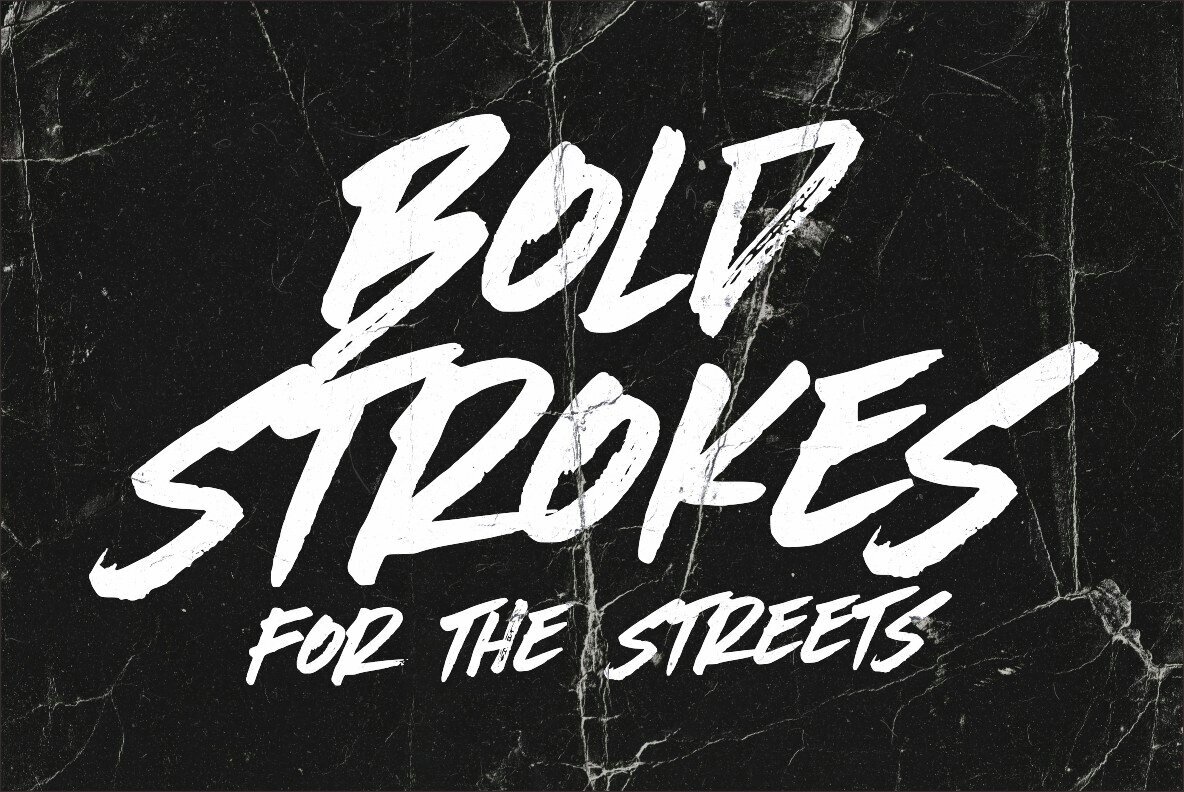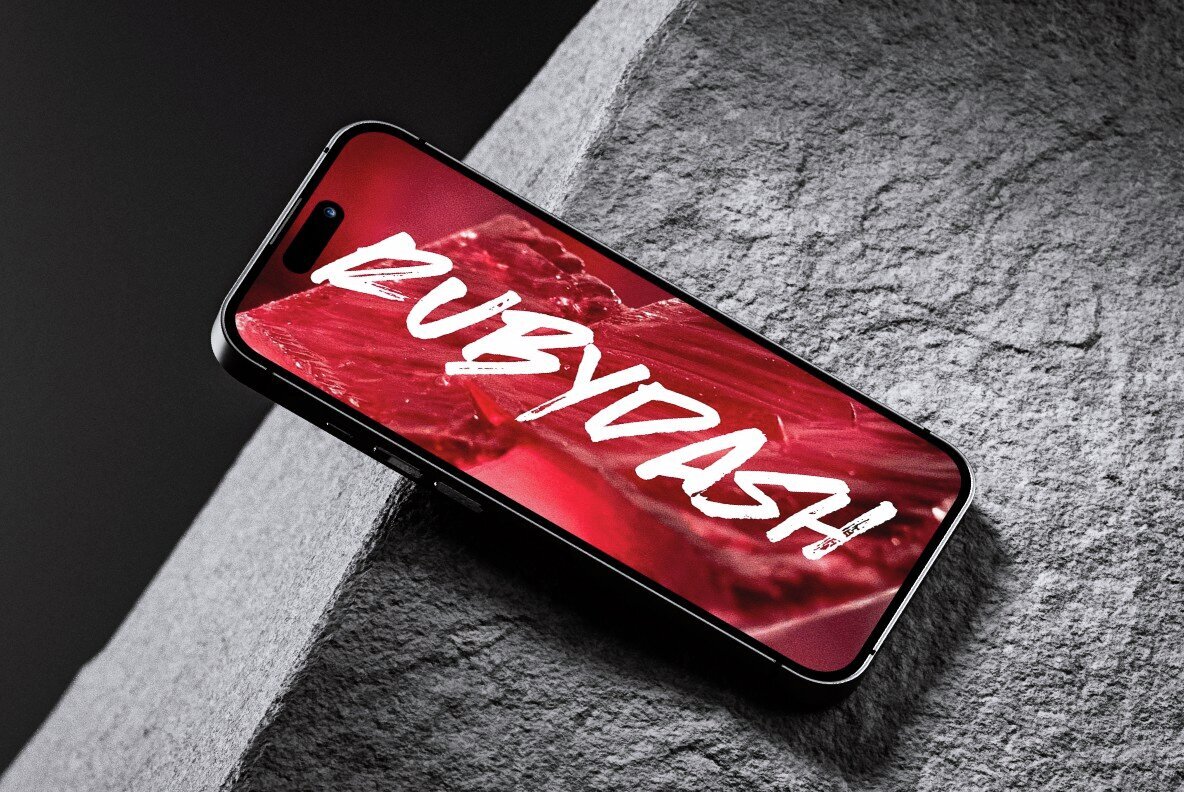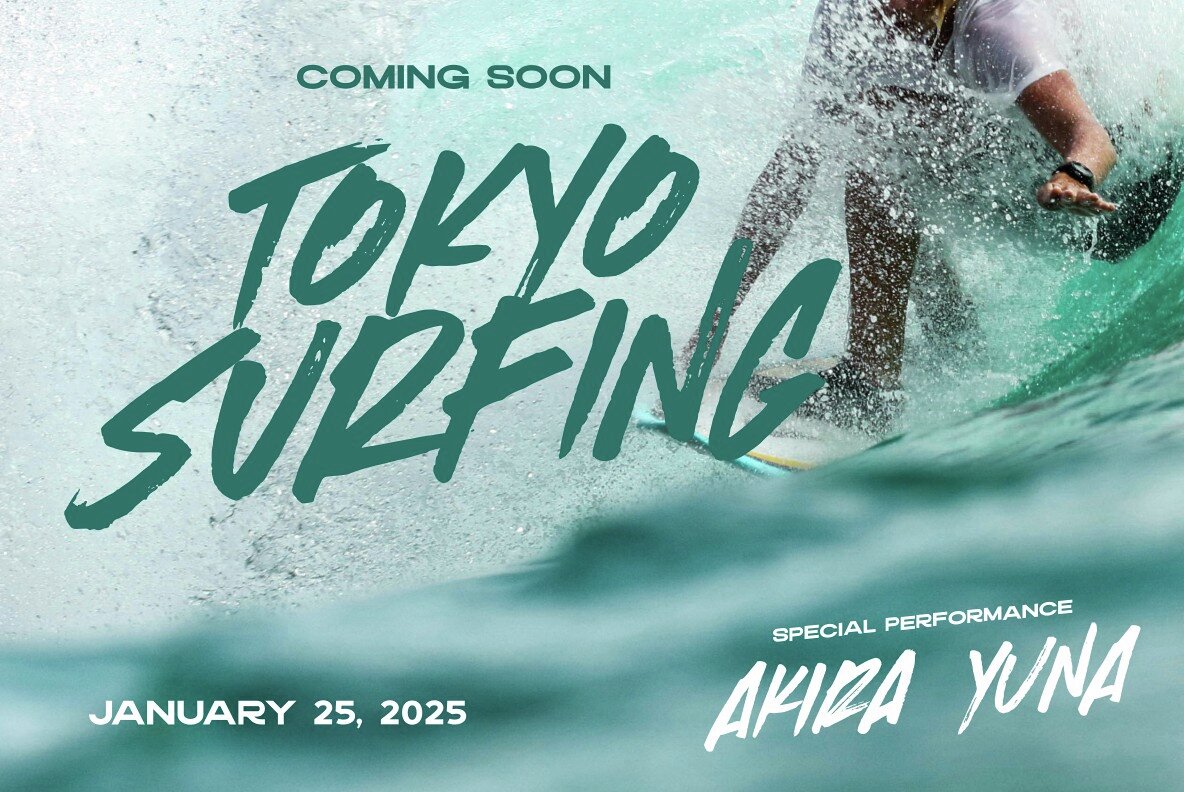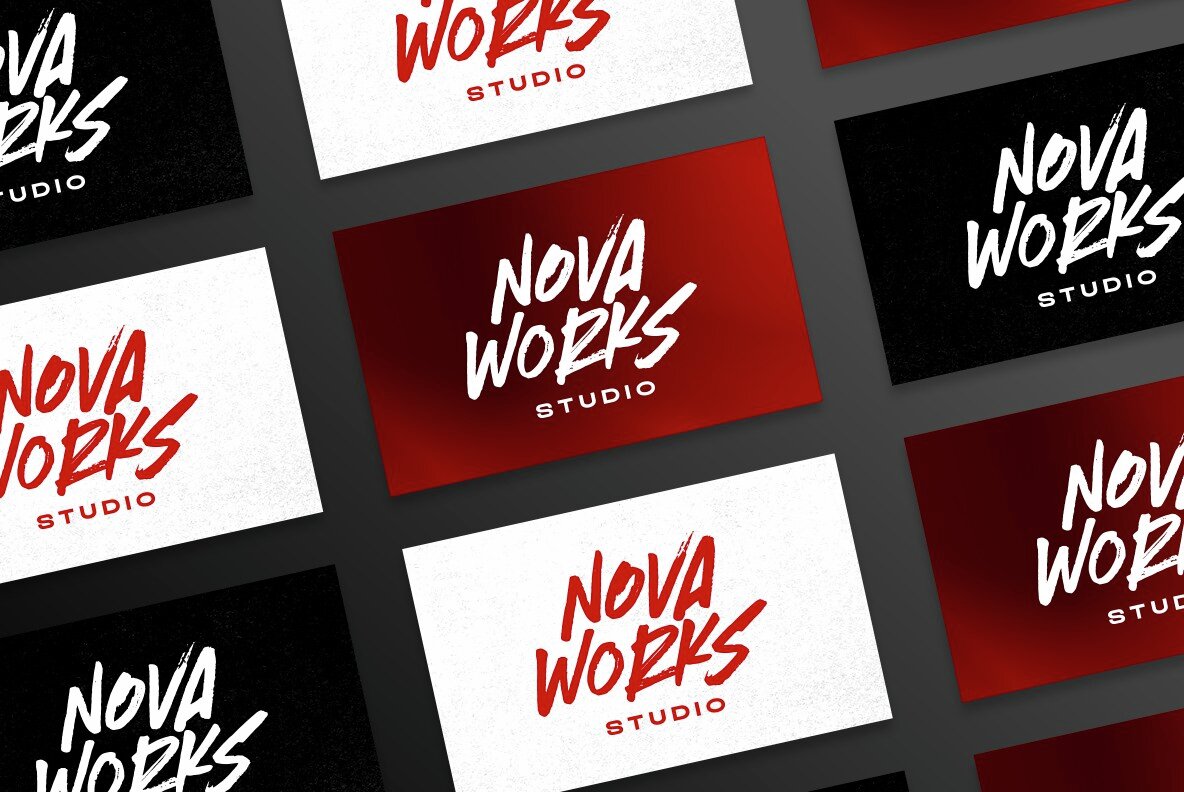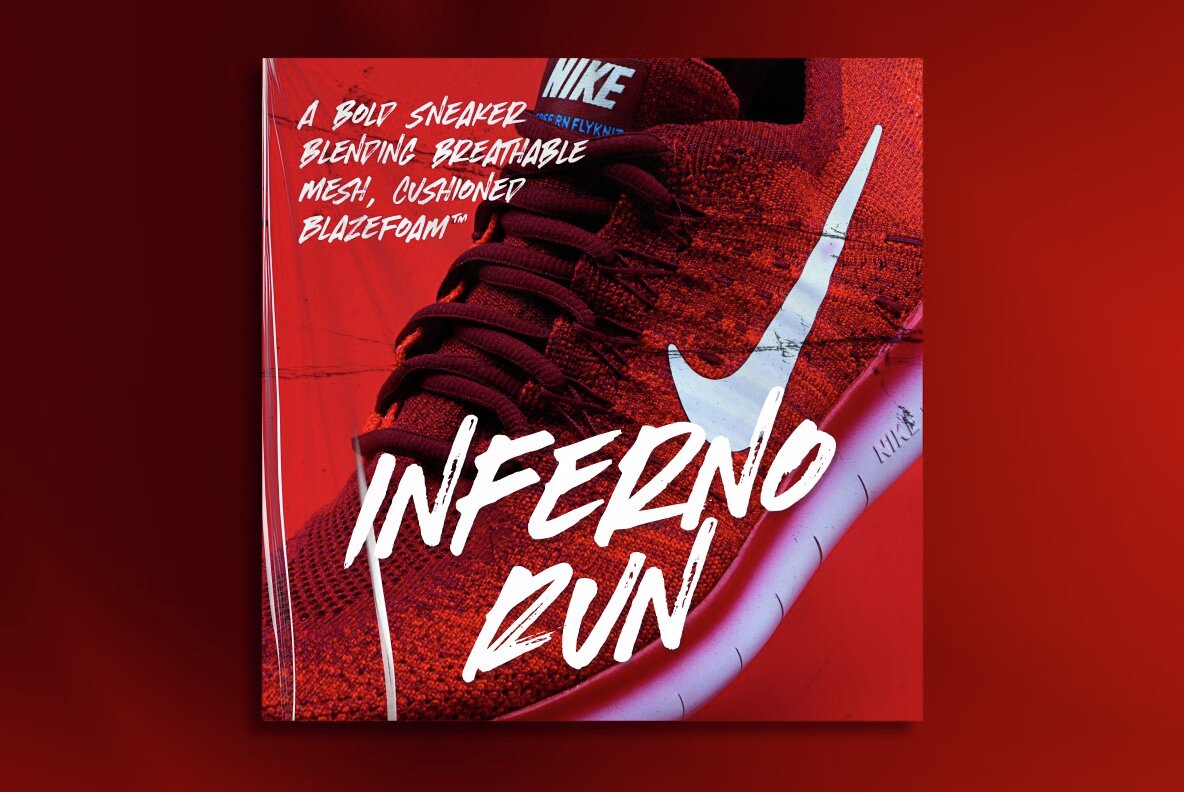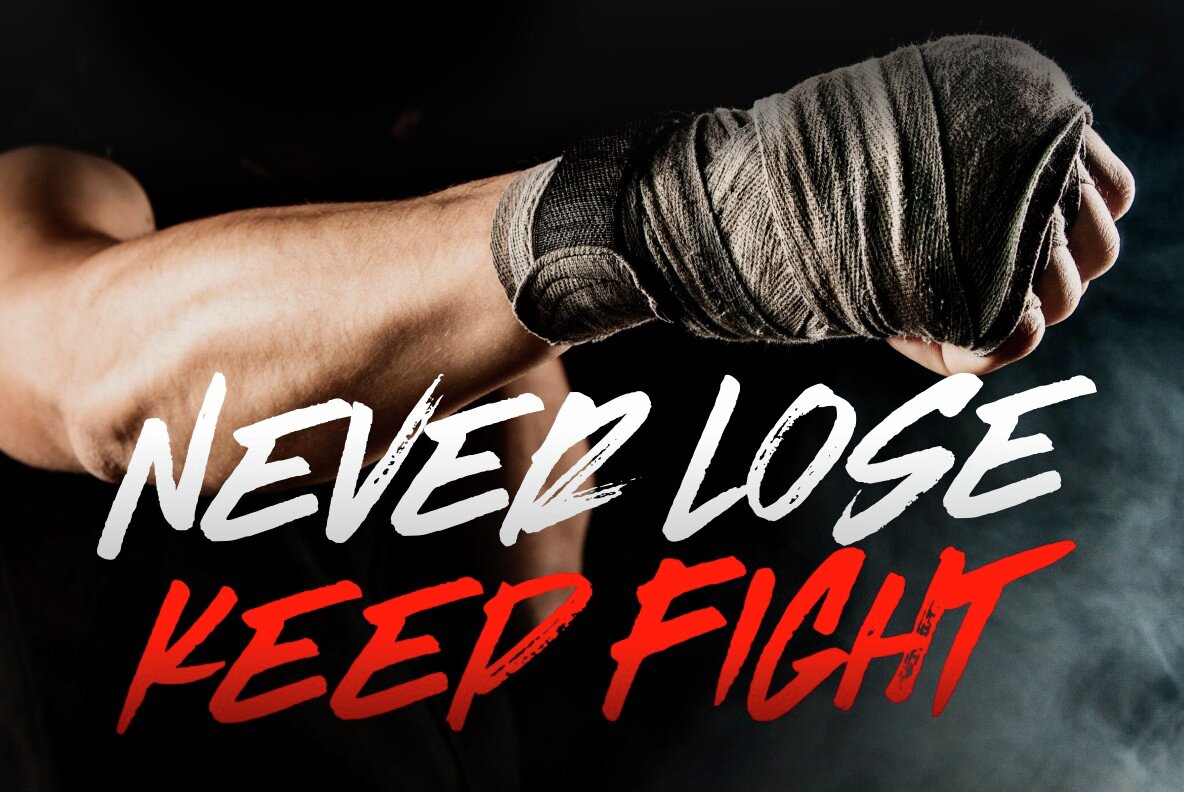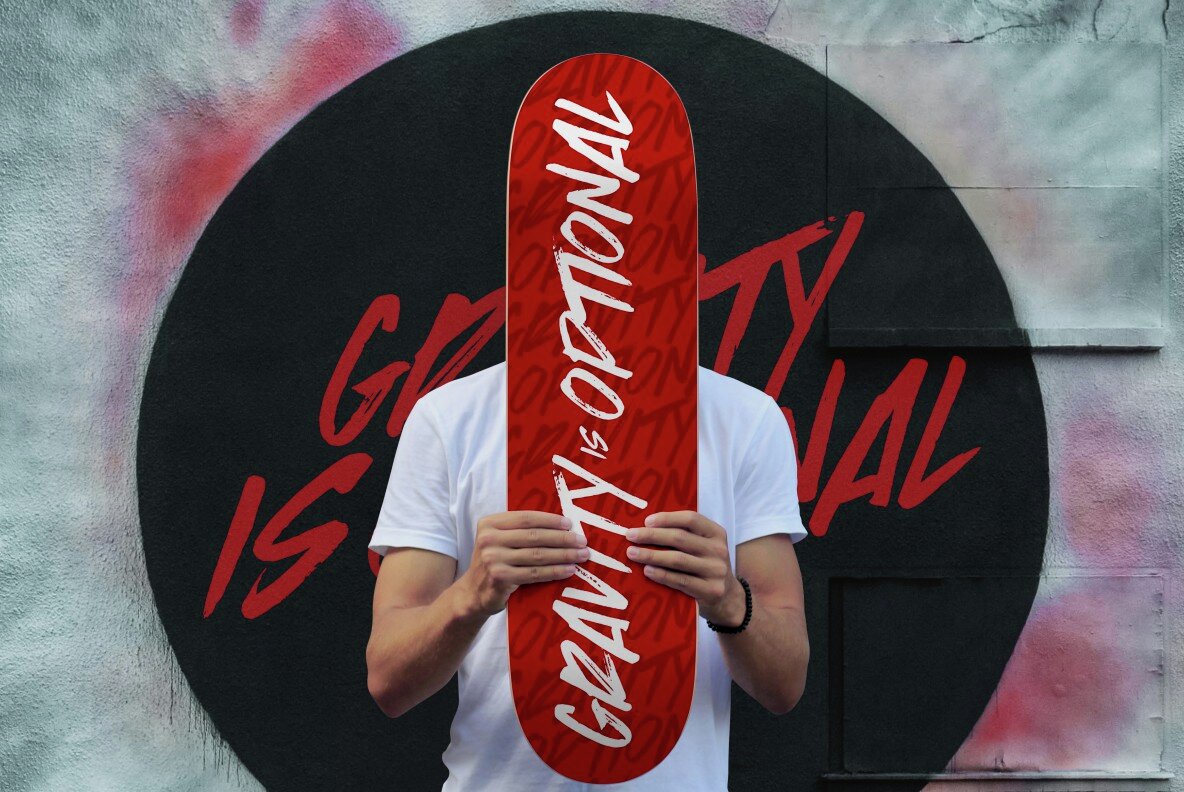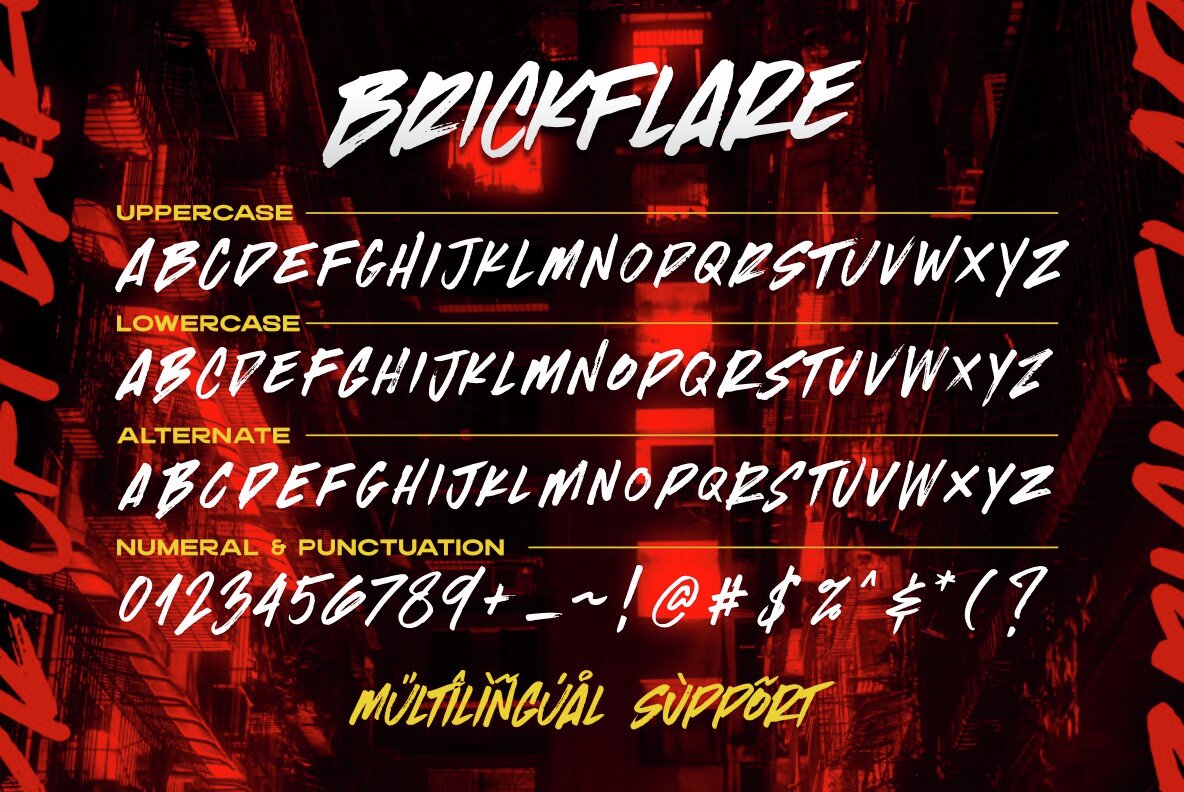
Brickflare Font
Brickflare
This bold handwriting font exudes a chaotic grunge style, perfect for projects that require an expressive, urban edge. Ideal for streetwear branding, music album covers, and edgy posters, its raw, dynamic nature makes a statement in any design. Elevate your work with this powerful tool that brings spontaneity and energy to the forefront.